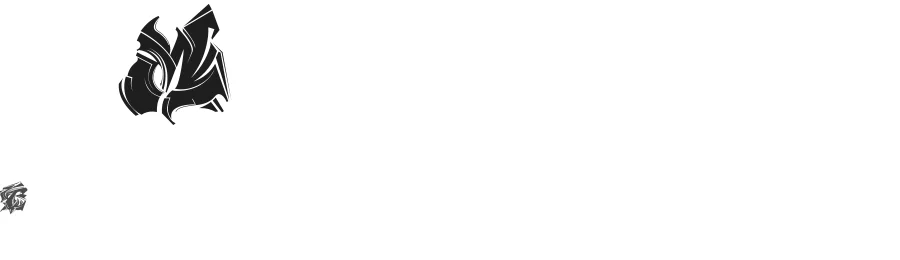
About Chase Zen Jackulator Font
Chase Zen Jackulator is a script & handwritten font designed by Chung-Deh Tien. It includes 79 glyphs, a regular weight, TTF (TrueType) format, and 102 languages. Chase Zen Jackulator is free to download; check the license details on this page before commercial use. Script & handwritten fonts like Chase Zen Jackulator work best for wedding invitations, greeting cards, signatures, and elegant branding.
Chase Zen Jackulator Font is a script font that shines as a display or heading face. Pair it with a clean sans-serif or serif font for body text β the contrast creates a clear hierarchy while the two styles stay balanced and easy to read.
Chase Zen Jackulator Font
Chase Zen Jackulator Font is a script handwritten typeface by Chung-Deh Tien, ideal for logos, invitations, branding, and creative projects.